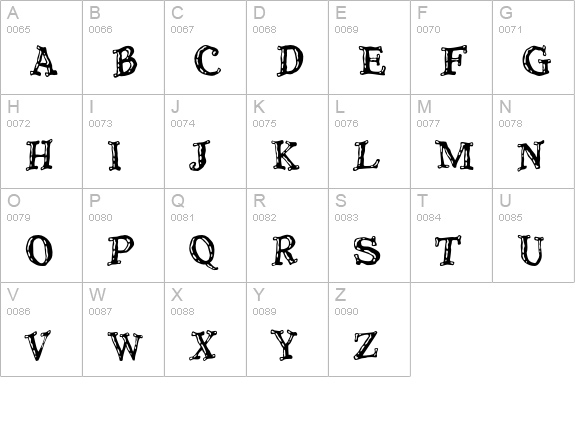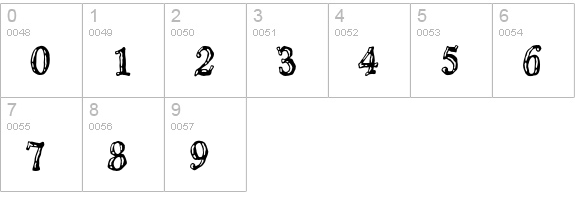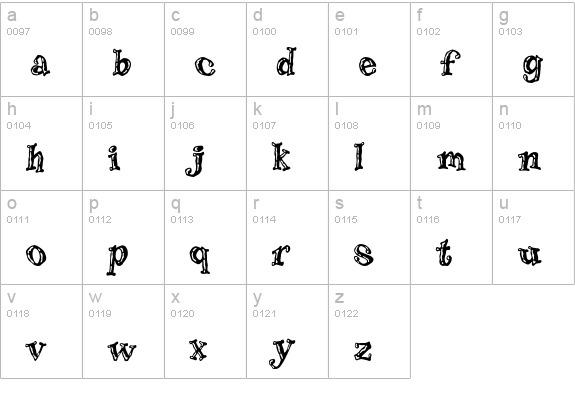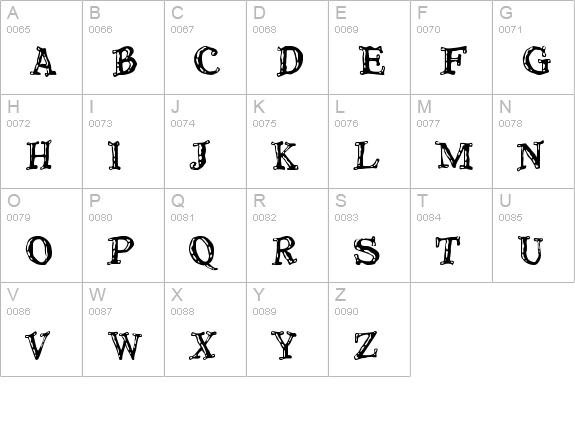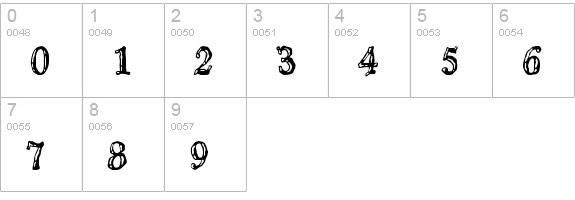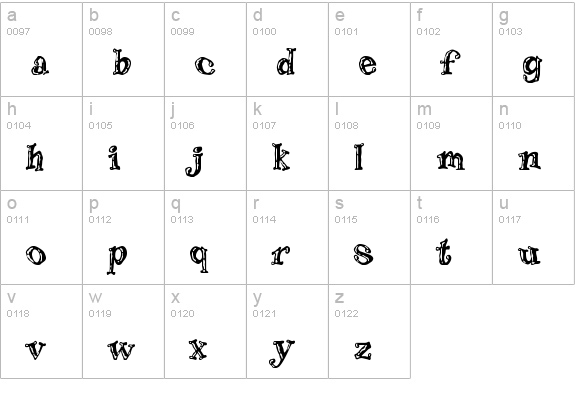
Lollygag Font Details
Introducing Lollygag font, a whimsical and playful typeface that exudes a sense of carefree charm. With its rounded edges and smooth curves, Lollygag is perfect for adding a touch of fun to any design project. This versatile font is ideal for a variety of uses, from branding and packaging to social media graphics and invitations. The best part? Lollygag is available for free download at FontsMarket.com. Whether you're a seasoned designer looking to add a fresh new font to your collection or a beginner seeking to experiment with different styles, Lollygag is sure to inspire and delight. Embrace the lighthearted spirit of Lollygag font and let your creativity shine!